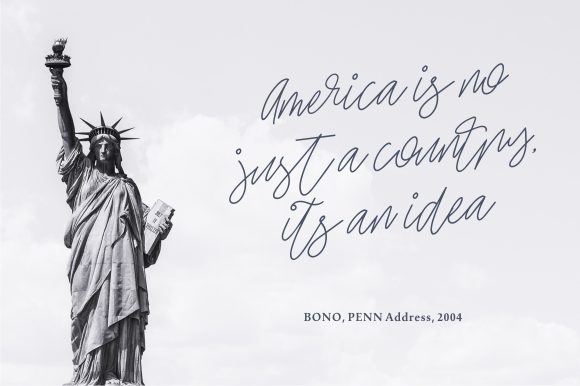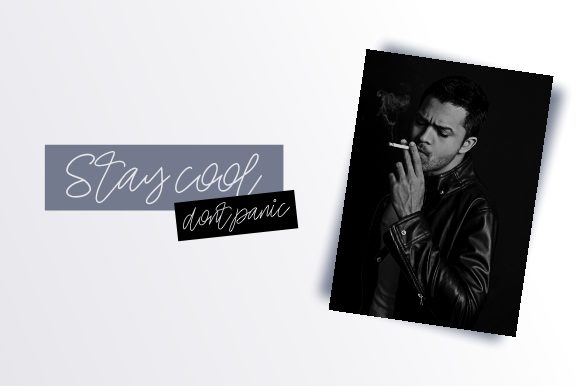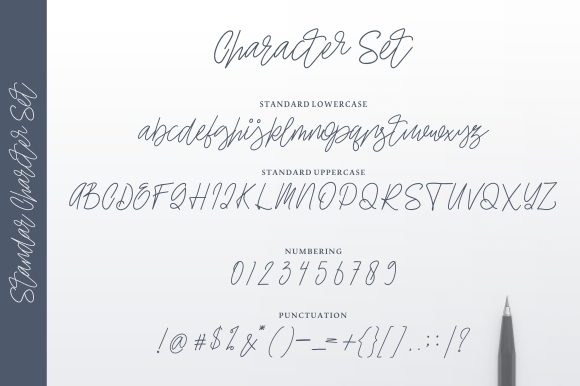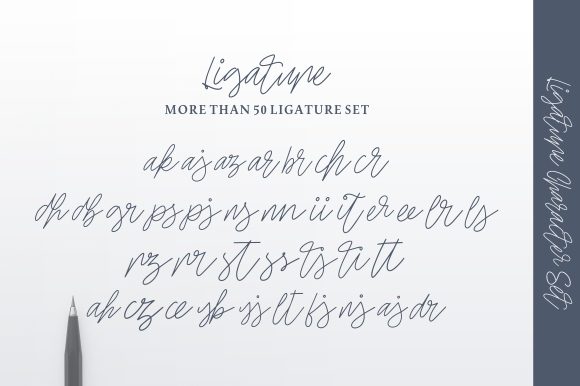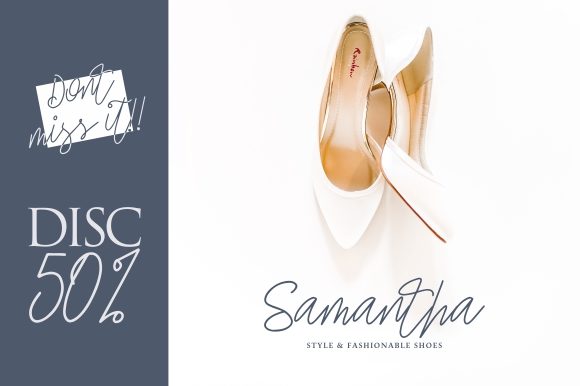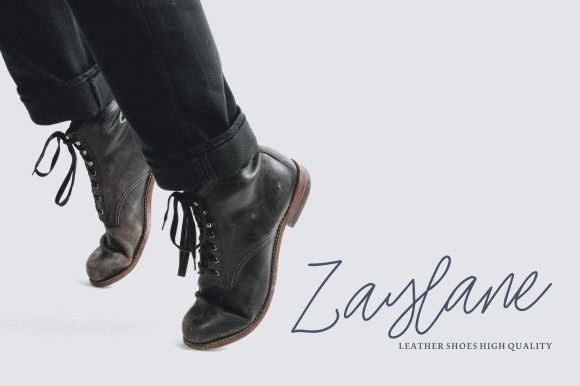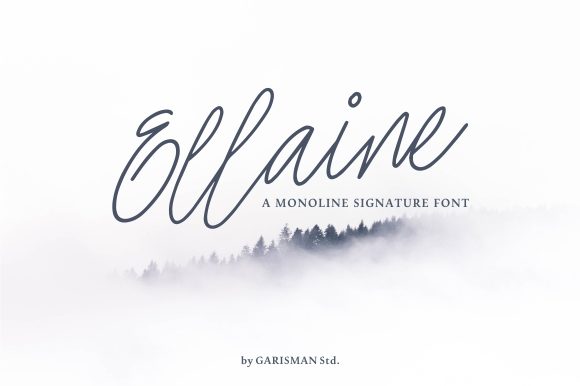
Ellaine Font: Elevate Your Brand with Elegant Signature Script
The Ellaine font is a stunning signature script that has been making waves in the design world. Its elegant lines and natural touch make it an ideal choice for crafters and designers looking to create a personal brand that exudes sophistication and charm. In this article, we’ll dive into the world of Ellaine font, exploring its features, benefits, and uses, as well as provide tips on how to make the most of this beautiful font.
The Beauty of Ellaine Font
The Ellaine font is a beautiful signature script that boasts elegant lines, fluid curves, and a natural flow. Its unique design makes it perfect for creating a personal brand that stands out from the crowd. Whether you’re a designer, crafty entrepreneur, or small business owner, Ellaine font is sure to impress. Its versatility allows it to be used in a variety of design projects, from logos and branding materials to social media graphics and website headers.
Key Features of Ellaine Font
- Elegant Lines: Ellaine font features elegant lines that give it a sophisticated and refined look.
- Natural Touch: The font’s natural flow and curves make it perfect for creating a personal brand that feels approachable and authentic.
- Signature Script: Ellaine font is a signature script font, making it ideal for creating unique and eye-catching designs.
- Versatile: The font can be used in a variety of design projects, from logos and branding materials to social media graphics and website headers.
Benefits of Using Ellaine Font
So, why should you choose Ellaine font for your design projects? Here are just a few benefits of using this beautiful font:
- Stand Out: Ellaine font is a unique and eye-catching font that will help your brand stand out from the crowd.
- Elegance: The font’s elegant lines and natural touch give it a sophisticated and refined look that’s perfect for high-end brands.
- Versatility: Ellaine font can be used in a variety of design projects, making it a versatile addition to your font collection.
- Easy to Read: Despite its elegant design, Ellaine font is easy to read, making it perfect for body text and other applications where readability is key.
Using Ellaine Font in Your Design Projects
So, how can you use Ellaine font in your design projects? Here are a few ideas to get you started:
- Logos and Branding: Use Ellaine font to create a unique and eye-catching logo that reflects your brand’s personality.
- Social Media Graphics: Add a touch of elegance to your social media graphics with Ellaine font.
- Website Headers: Use Ellaine font to create beautiful website headers that set the tone for your brand.
- Stationery: Add a touch of sophistication to your stationery with Ellaine font.
Tips for Getting the Most Out of Ellaine Font
Here are a few tips for getting the most out of Ellaine font:
- Use it Sparingly: While Ellaine font is beautiful, it’s best used sparingly. Use it for headings, titles, and other applications where you want to make a statement.
- Pair it with Other Fonts: Ellaine font pairs well with a variety of other fonts. Experiment with different pairings to find the one that works best for your brand.
- Experiment with Colors: Ellaine font looks great in a variety of colors. Experiment with different colors to find the one that works best for your brand.
| Font Name | Ellaine Font |
| Author | Garisman Studio |
The Ellaine font is a beautiful signature script that is perfect for crafters and designers looking to create a personal brand that exudes elegance and sophistication. Its elegant lines, natural touch, and versatility make it an ideal choice for a variety of design projects. By following the tips outlined in this article, you can get the most out of Ellaine font and create stunning designs that reflect your brand’s personality.